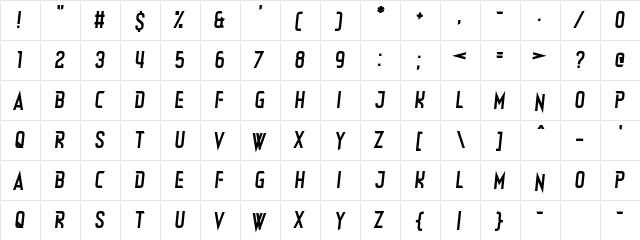
Dealer Strikes Regular
| Designer | Allison James |
Design Context for Dealer Strikes Typeface
Dealer Strikes offers clean, dependable letterforms without strong stylistic allegiance, making it a practical choice for designers who need flexibility.